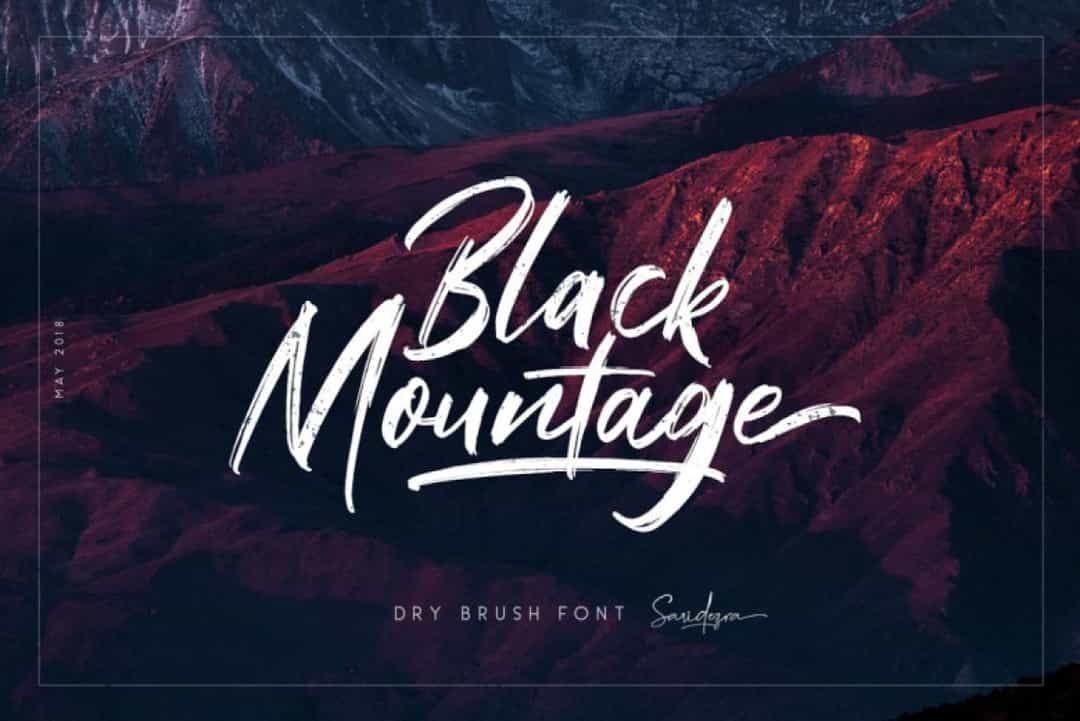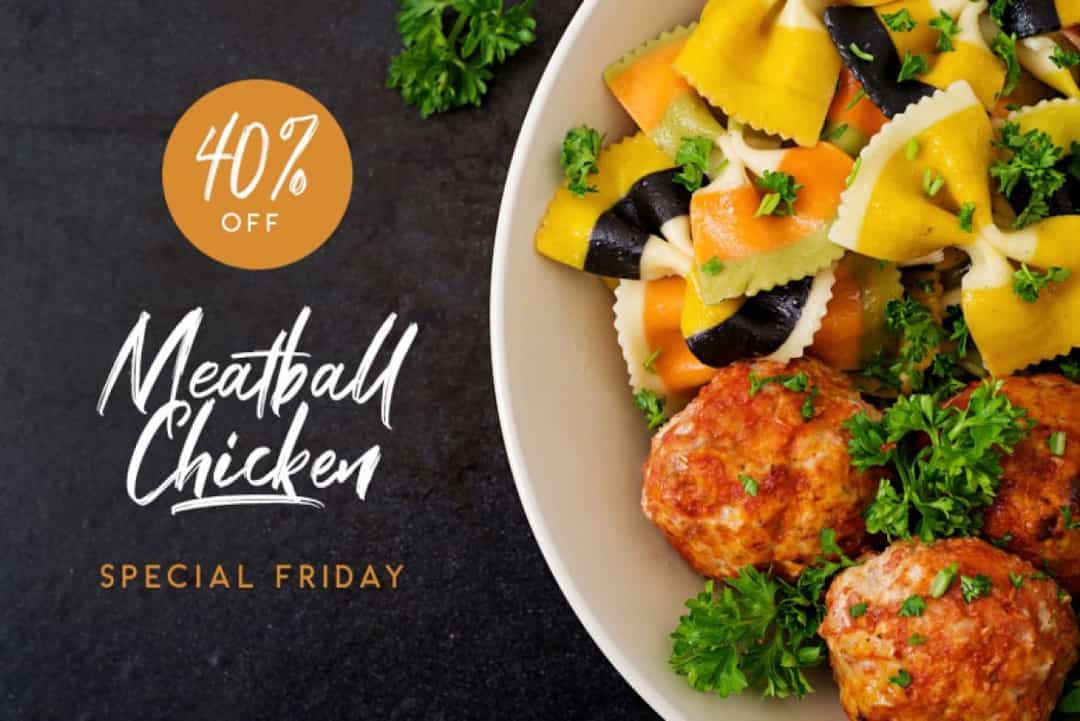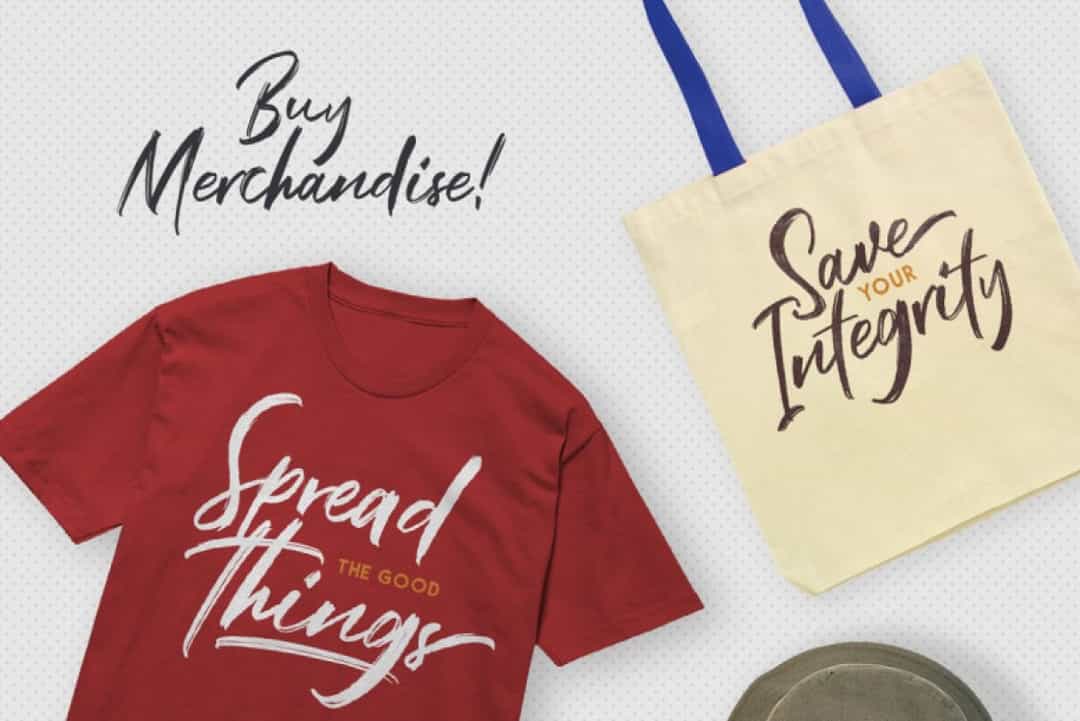
Black Mountage is a brush type font with stylistic alternates, swashes, and more to help create signatures or quotes that you can personalize to suit yourself or clothing designs. OTF format supports multiple languages. PUA support also provided.